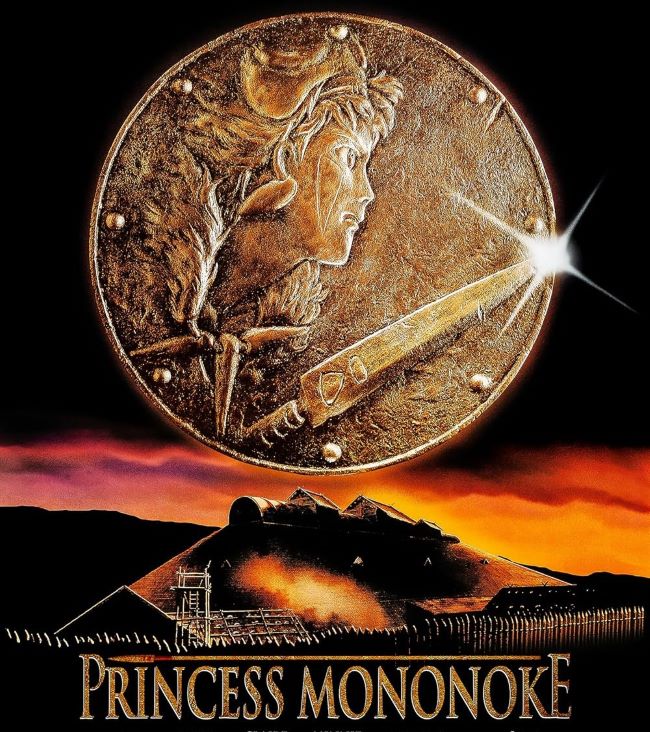
Princess Mononoke Font
Princess Mononoke Font grows wild through ancient letterforms rooted in primordial forests where spirits battle civilization’s encroachment. This typography breathes with organic ferocity—brush-stroked characters that feel carved by wind through sacred groves, embodying the film’s violent harmony between humanity and nature, where every stroke carries moss-covered wisdom and wolf-god fury simultaneously.
In the original Japanese posters, the lettering is bold yet organic, almost hand-drawn, reflecting the natural themes of forests, spirits, and ancient traditions. The Princess Mononoke font carries a raw, earthy elegance that makes it perfect for fantasy projects, nature-inspired artwork, or any design seeking a magical, cinematic touch.
Although the typeface was custom-created for the film’s title, fan-made replicas like Princess Mononoke Movie Font recreate the look with remarkable accuracy. Alternatives such as Hummingbird or Uncial Antiqua offer a similar handcrafted, mystical style, while free fonts like Cormorant Garamond bring a classical elegance that pairs well with fantasy themes.
Princess Mononoke Font haunts environmental activism campaigns, fantasy RPG branding, pagan festival materials, and ecological storytelling—typography that demands respect for forces older than industry, proving design can howl with untamed beauty.